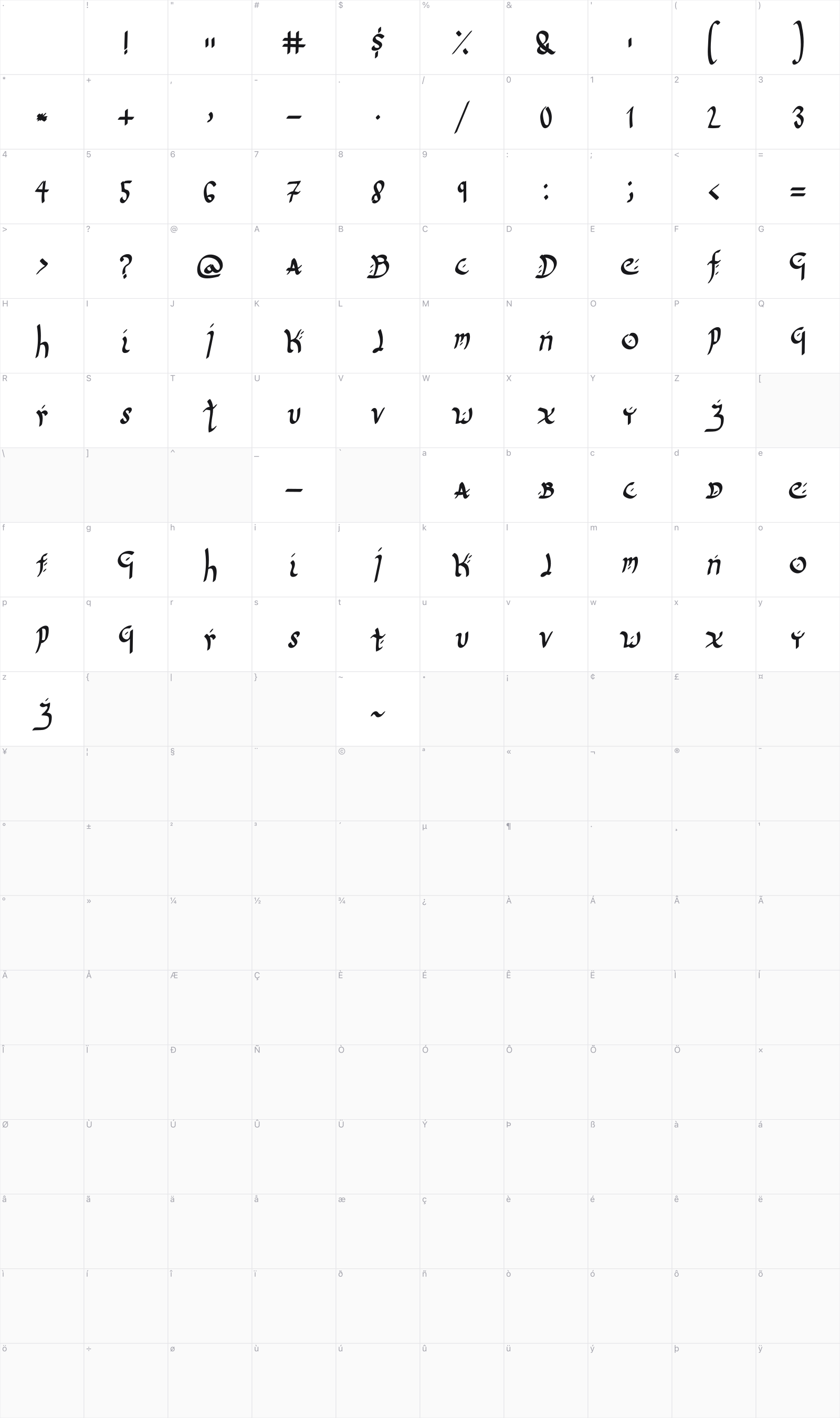
Quick Quill
Quick Quill is a bold calligraphic display font built on the energy of a fast-moving quill pen. Letters carry strong stroke contrast, split-tipped terminals, and an italic lean that suggests a scribe writing at speed. The result sits somewhere between a medieval manuscript hand and a lively informal script.